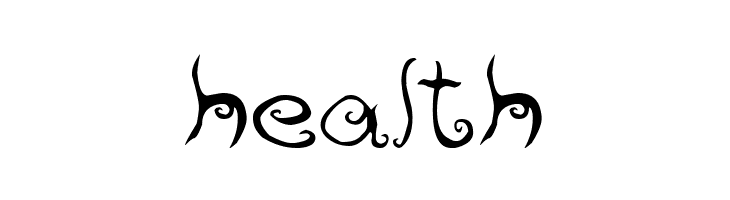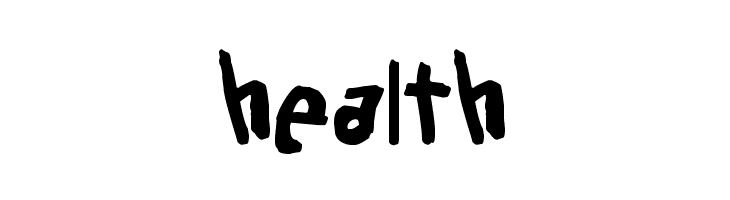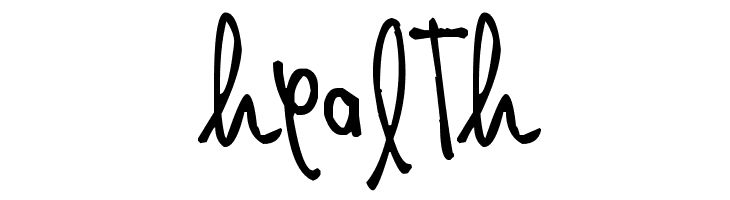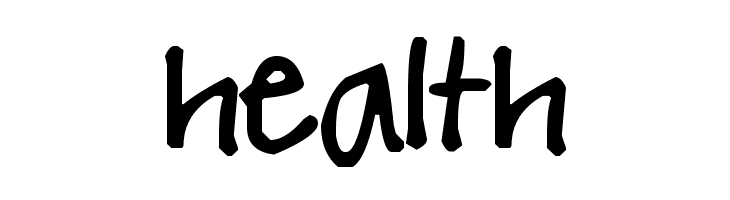
A bold, narrow font with sharp serifs and an elegant, sophisticated style.
An artistic and whimsical font with gothic-inspired swirls and curves.
A bold, hand-drawn font with an energetic and playful style.
A playful, handwritten font with a whimsical and informal style.
A bold, playful handwritten font with a casual and expressive style.
A playful, bold handwritten font with a casual and friendly style.
A playful, handwritten font with a mix of uppercase and lowercase letters.